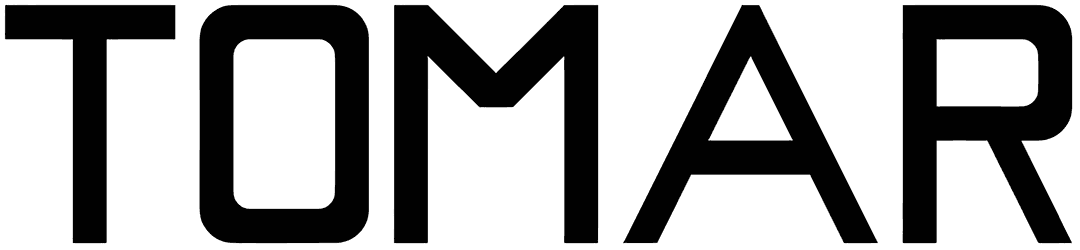
Tomar Font
There are many designs with various topics that you can adorn with a modern and humble style, and this sans serif font can create such a face. Tomar font consists of bold and technical lettering and reflects a nice mood.…
There are many designs with various topics that you can adorn with a modern and humble style, and this sans serif font can create such a face. Tomar font consists of bold and technical lettering and reflects a nice mood. Place Tomar on your prospective designs, namely magazines, logotypes, business cards, or the like, and show off your creative ideas.